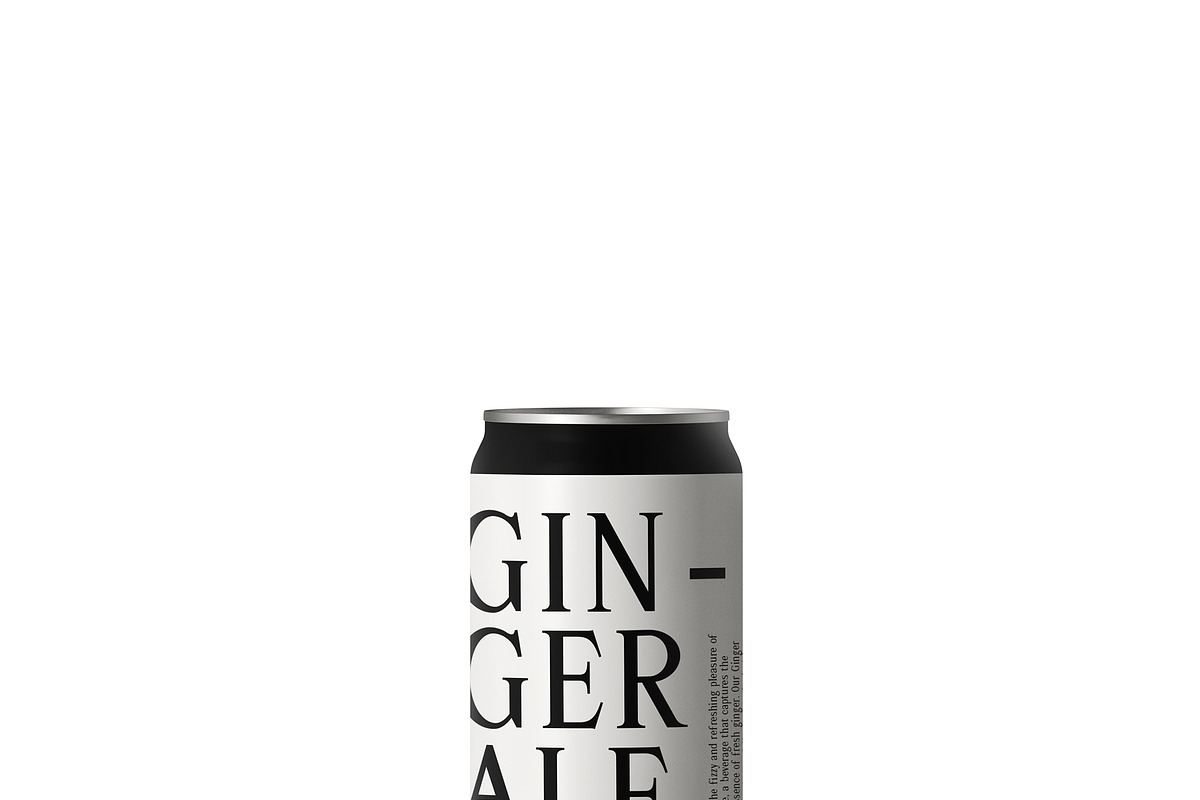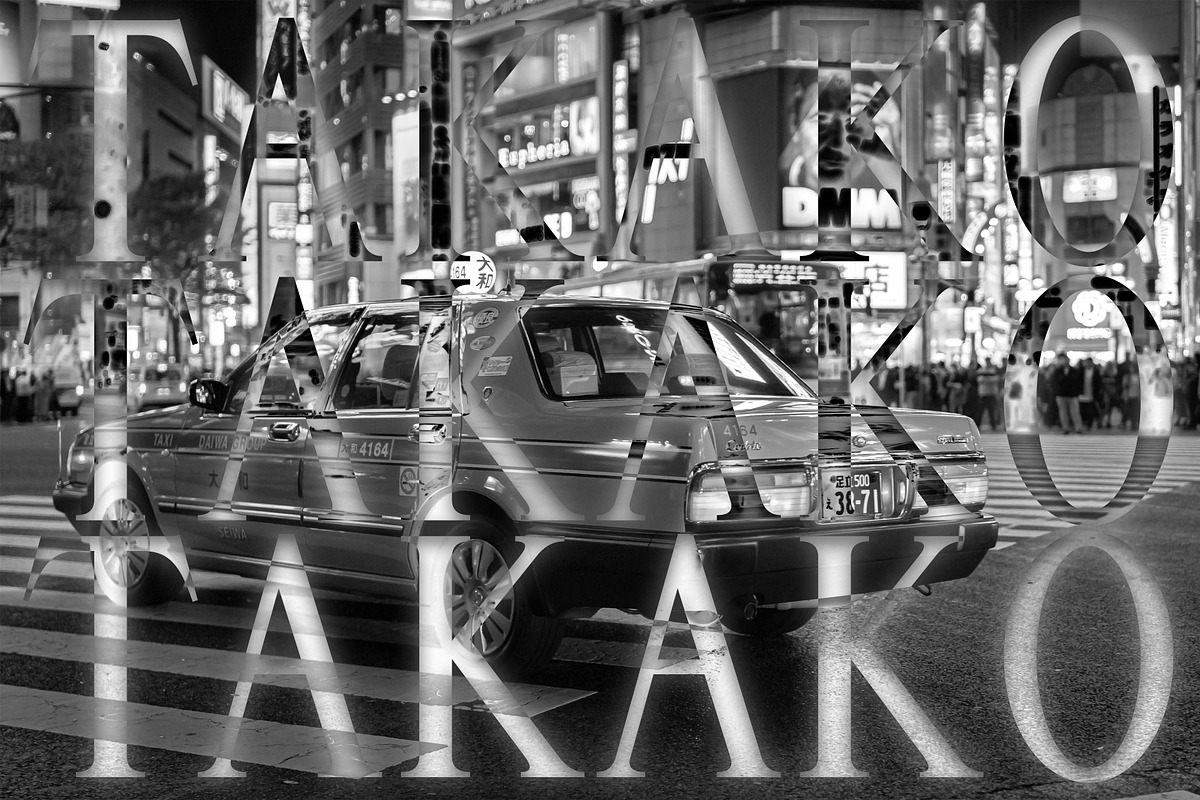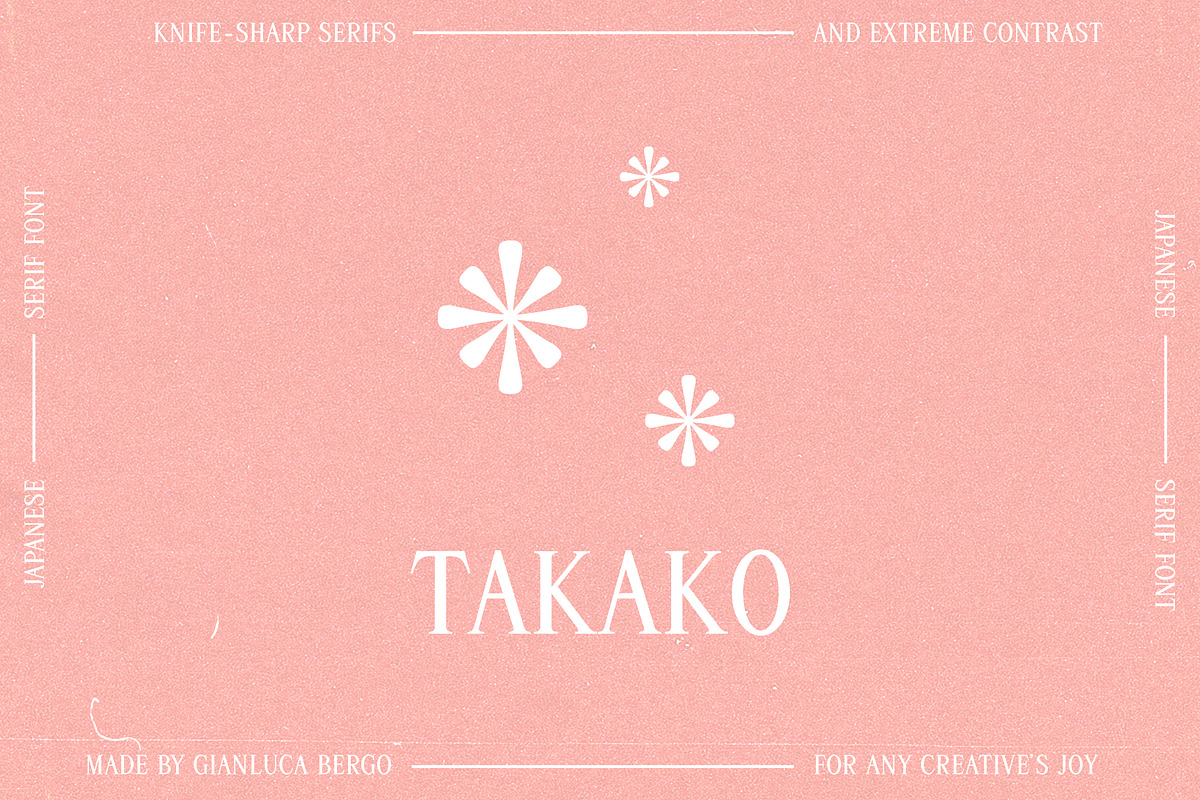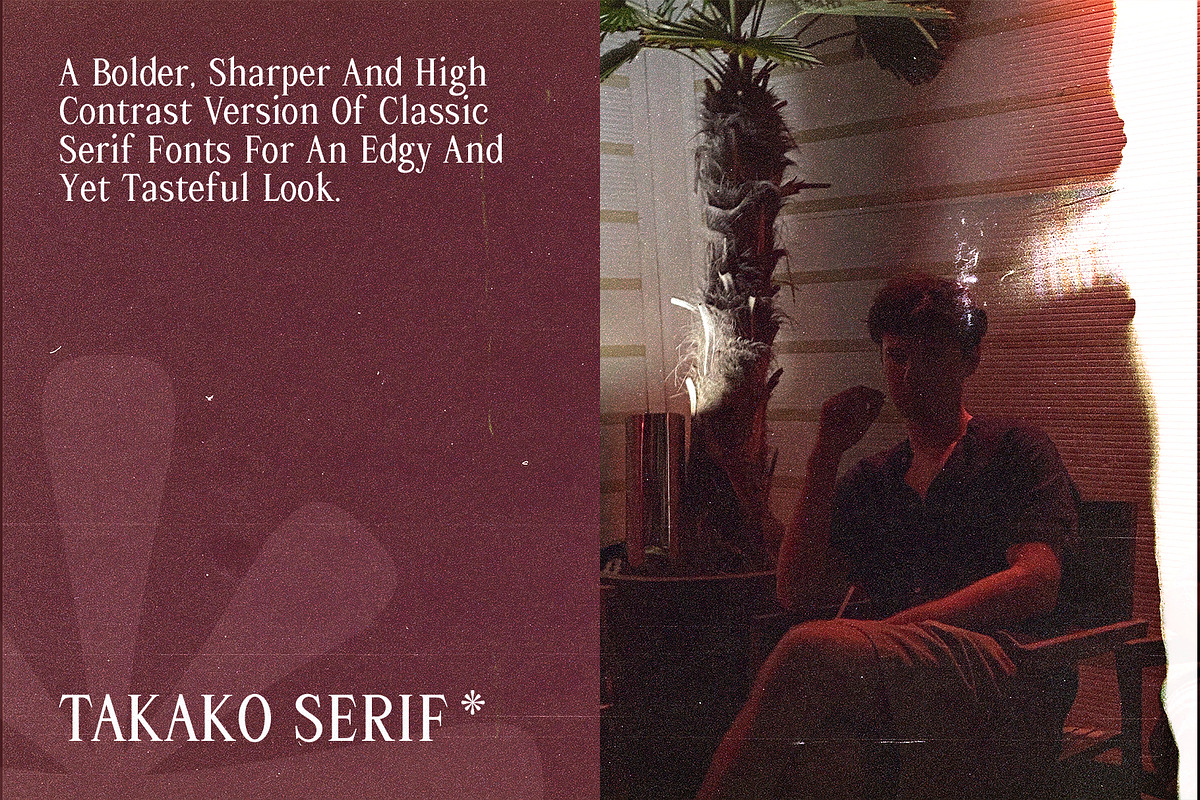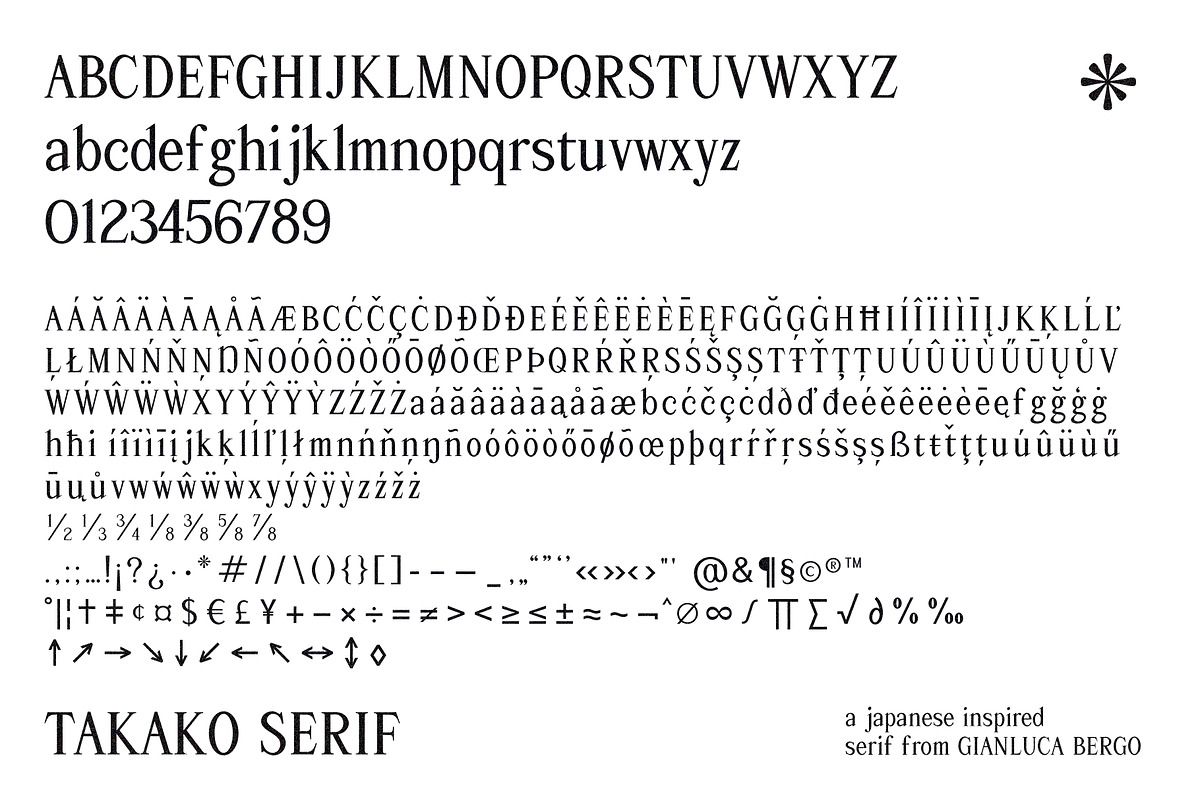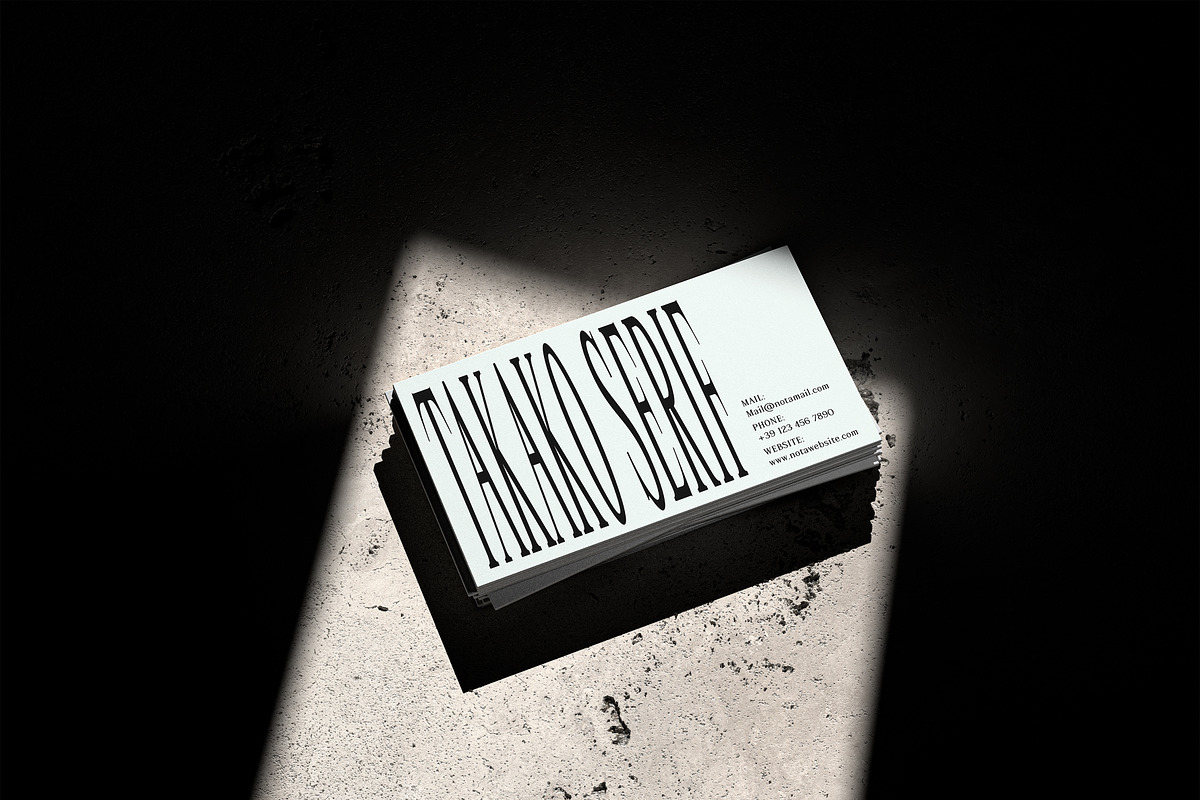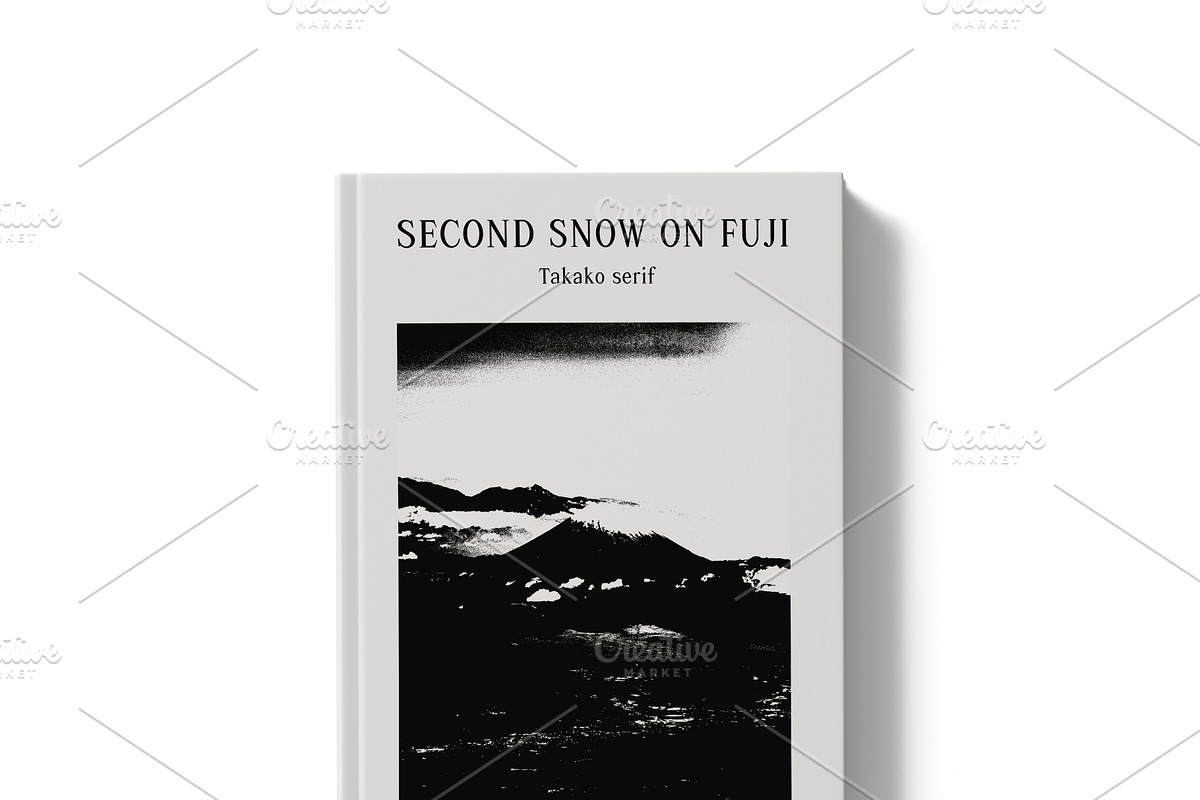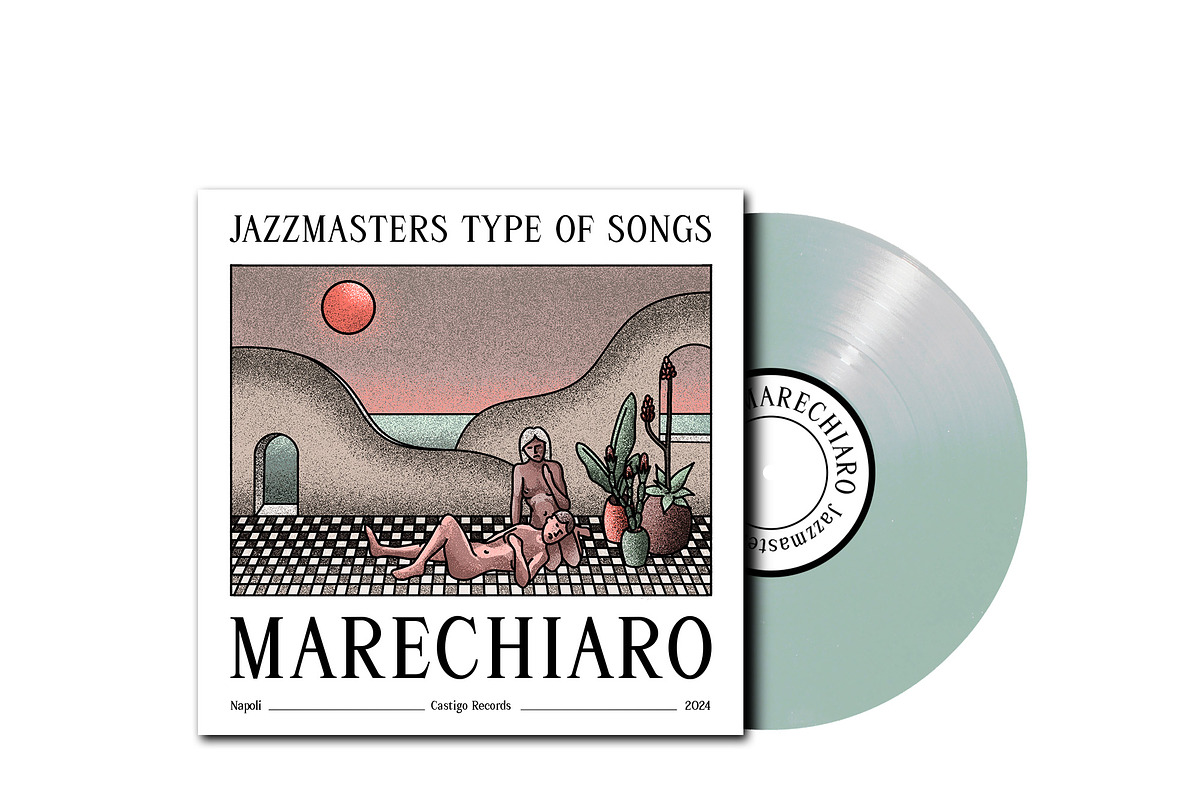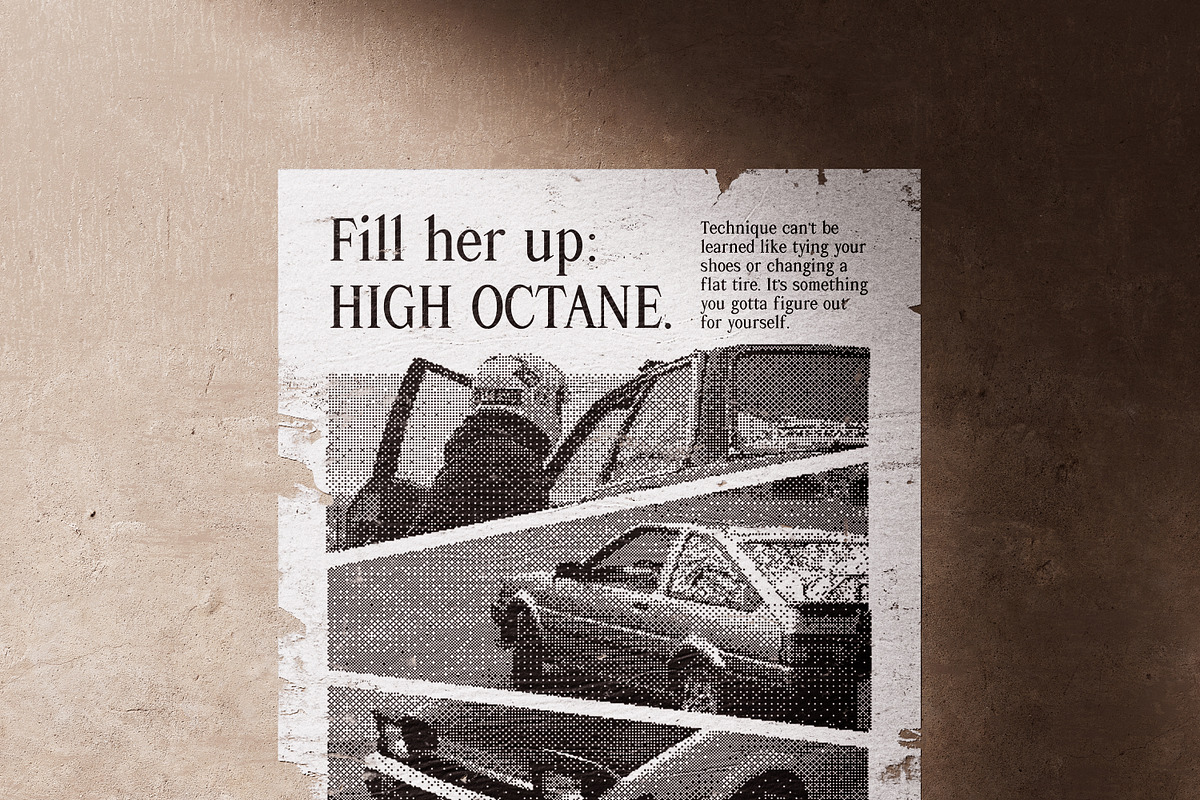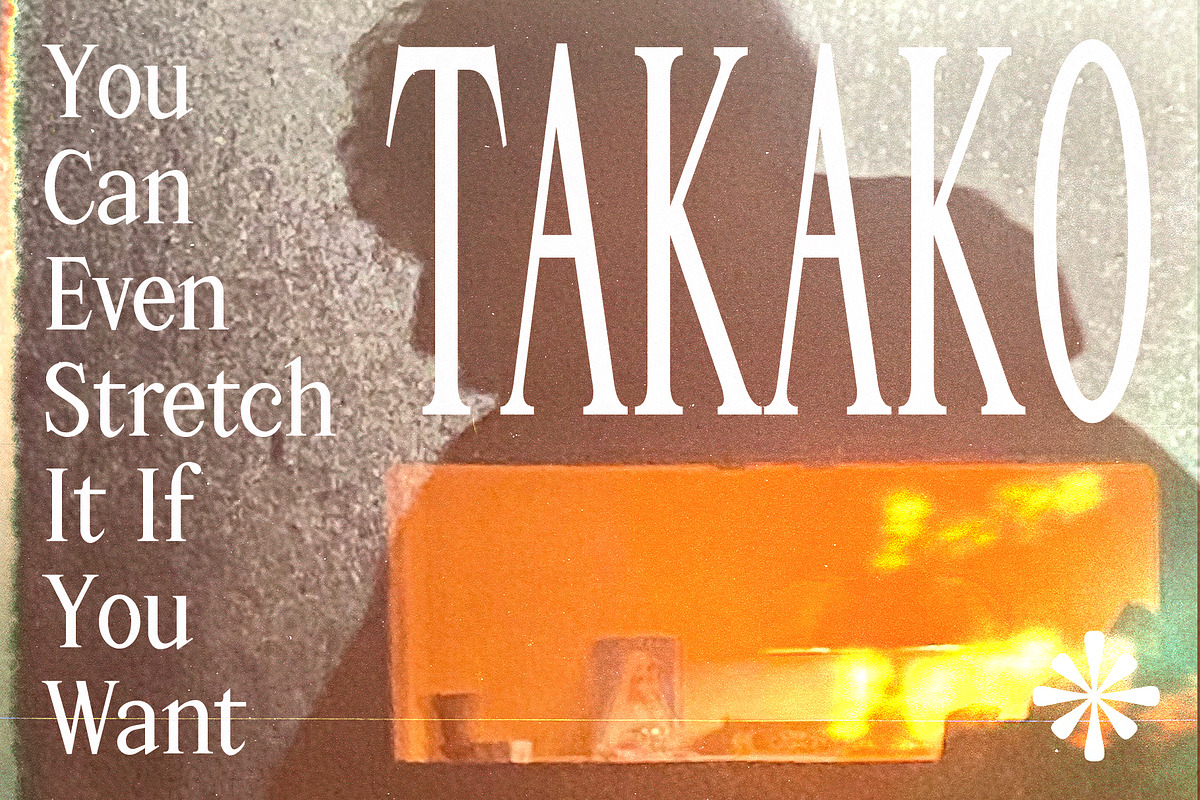
Takako serif
Takako is a refined serif font that blends the tradition of serif fonts with the modern Japanese influence of mangas and corporate logotypes. Its sharp, incisive serifs create a distinctive and modern character, making it ideal for typographic projects that call for a touch of brutal sophistication.
- Sharp Elegance: Takako's sharp serifs create a striking visual impact while maintaining excellent readability.
- Japanese-Inspired: The font draws inspiration from Latin typefaces reimagined through a Japanese aesthetic, offering a unique balance between tradition and innovation.
- Extended European Alphabet: This font includes an extensive character set, making it suitable for a wide range of languages and typographic needs across Central Europe.
- Creative Versatility: Whether for branding, editorial, or digital design, Takako adapts gracefully to any project requiring a contemporary and sophisticated touch.